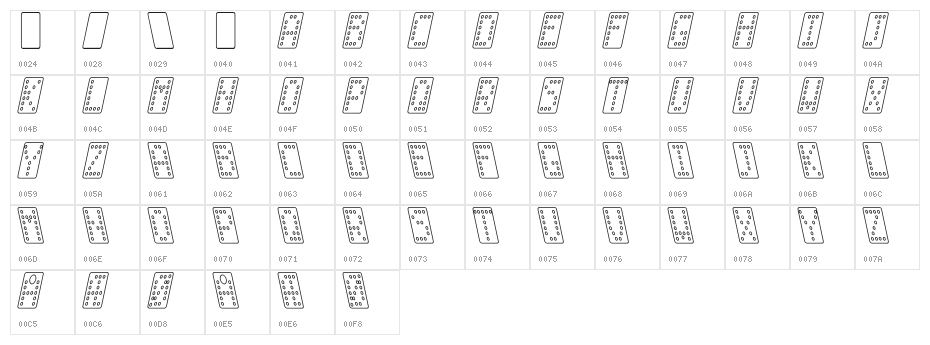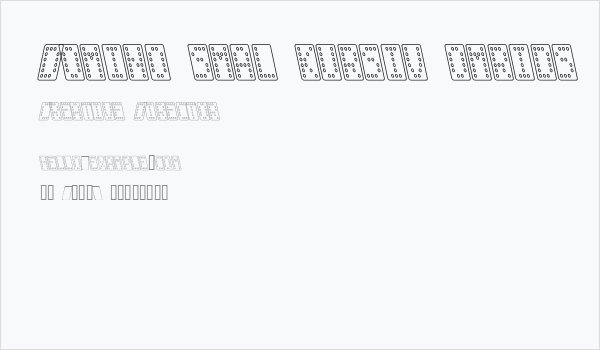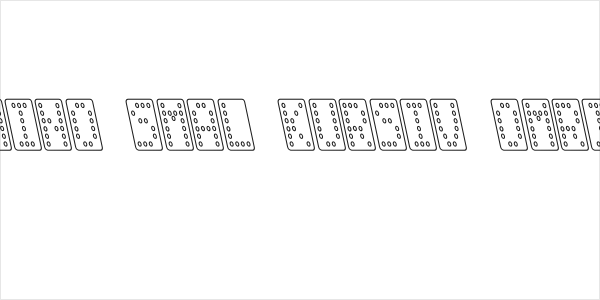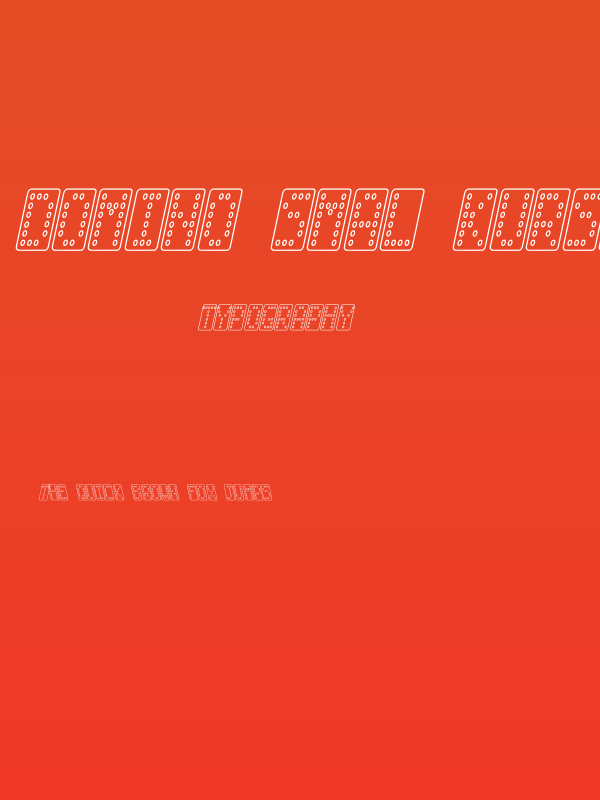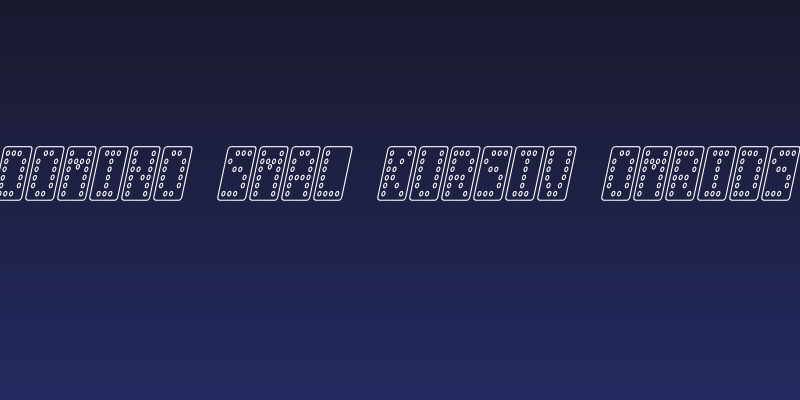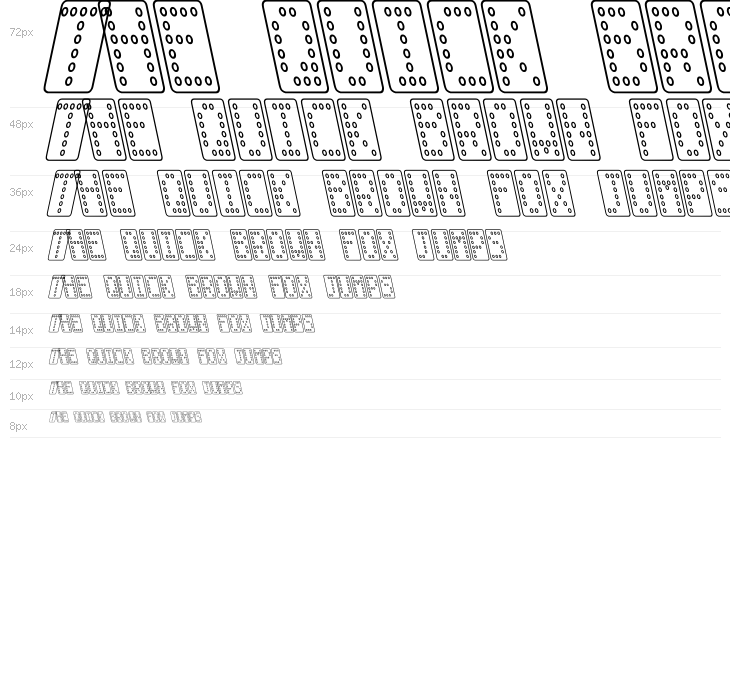
Domino smal kursiv omrids Font
Domino smal kursiv omrids Description
This font is a creative and playful representation of characters using domino tiles. Each letter and number is depicted as a domino piece, with the dots forming the shape of the character. The design is outlined, giving it a distinctive and bold appearance. The font is visually engaging and unique, making it suitable for projects that require a fun and unconventional style. The characters are slightly tilted, adding a dynamic and lively feel to the overall design. This font is perfect for themed events, games, or any project that seeks to incorporate a playful and interactive element.
| Overall Style | Playful, Creative |
| Use Case | Logos, Posters, Themed Events |
| Proposed Projects | Ideal for game-themed designs, children's books, playful branding, and event posters. |